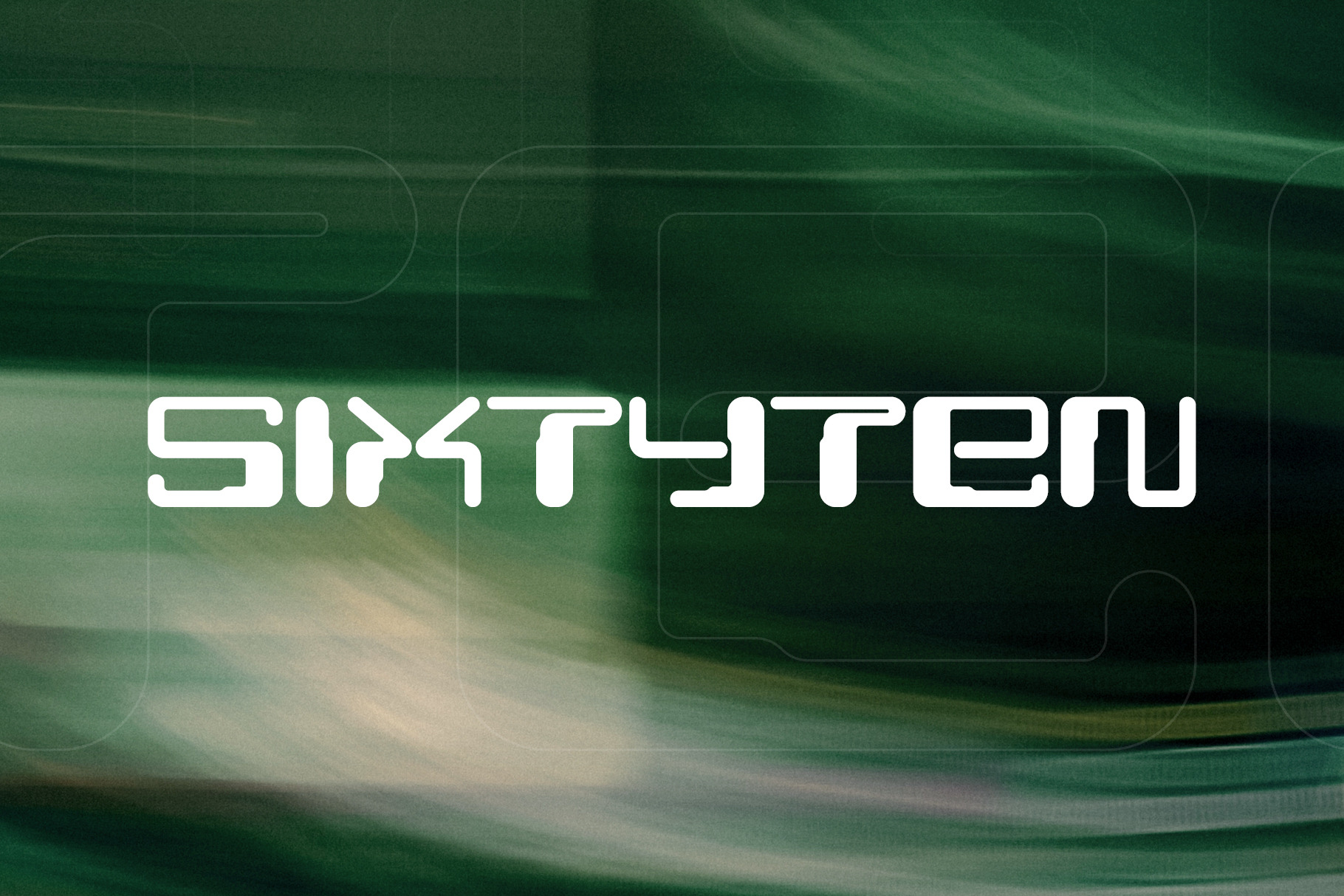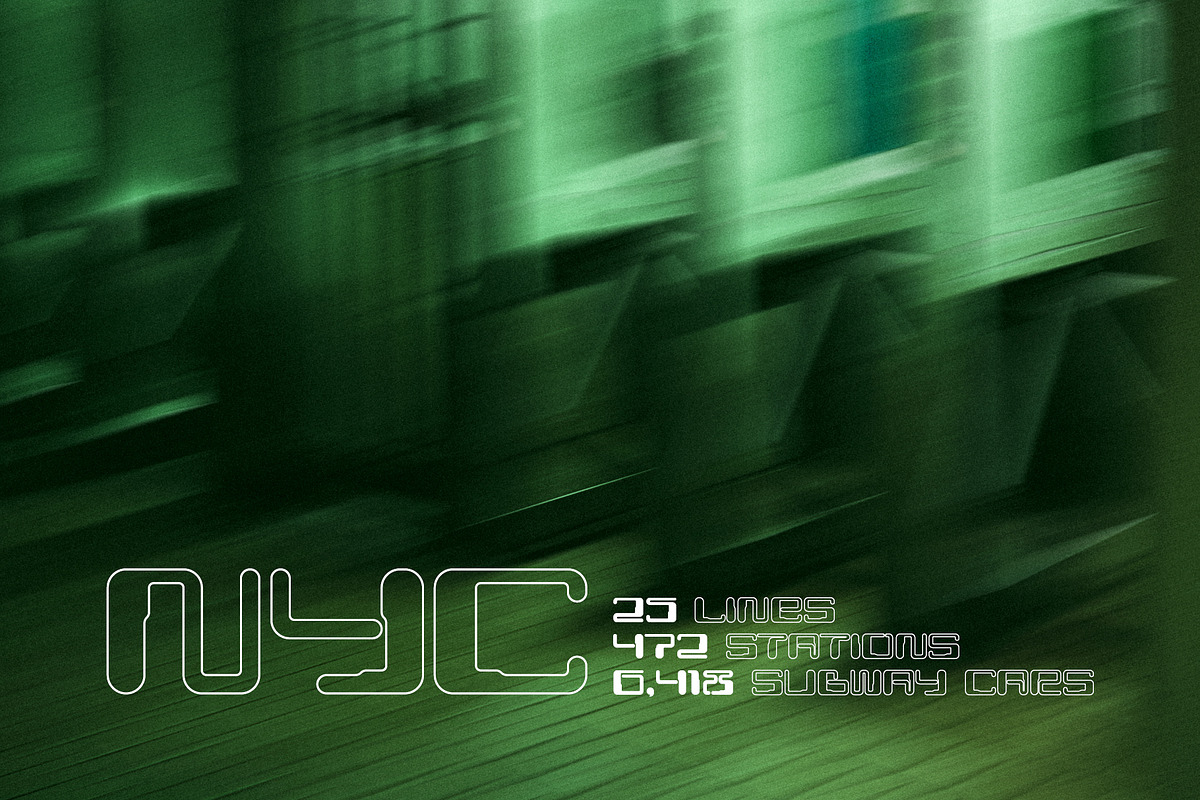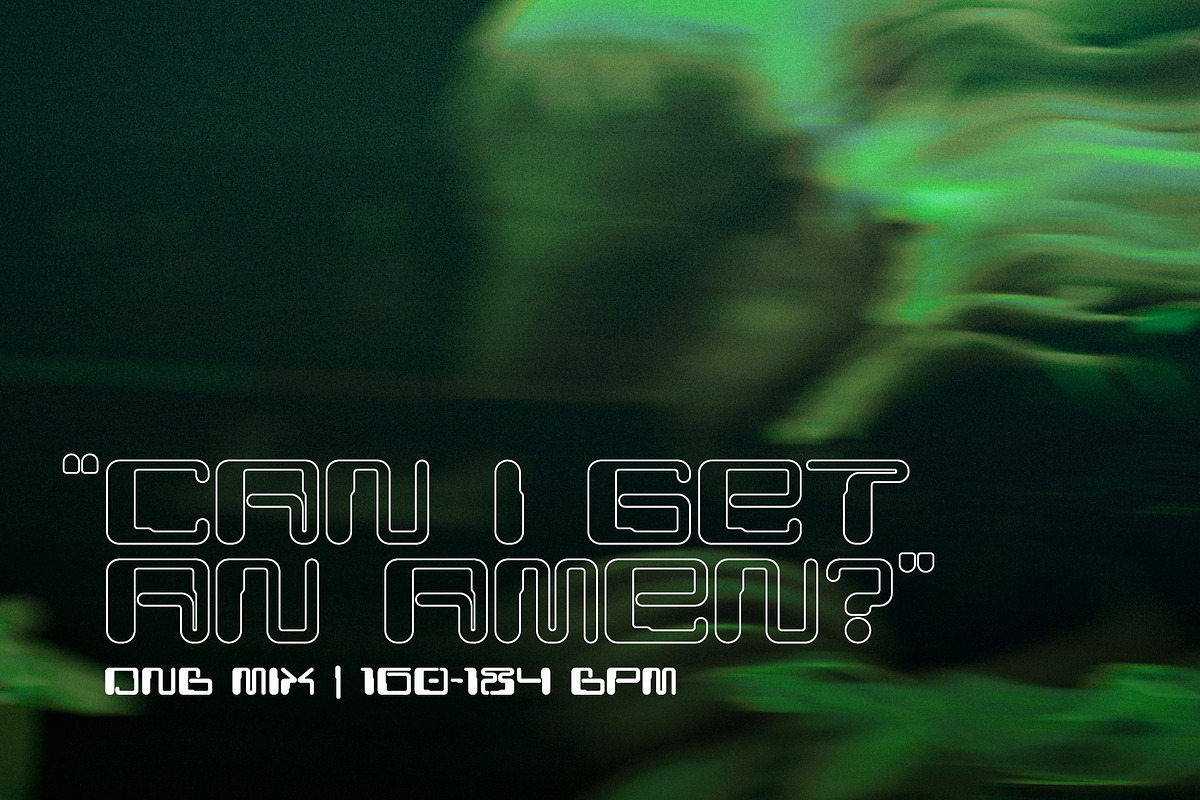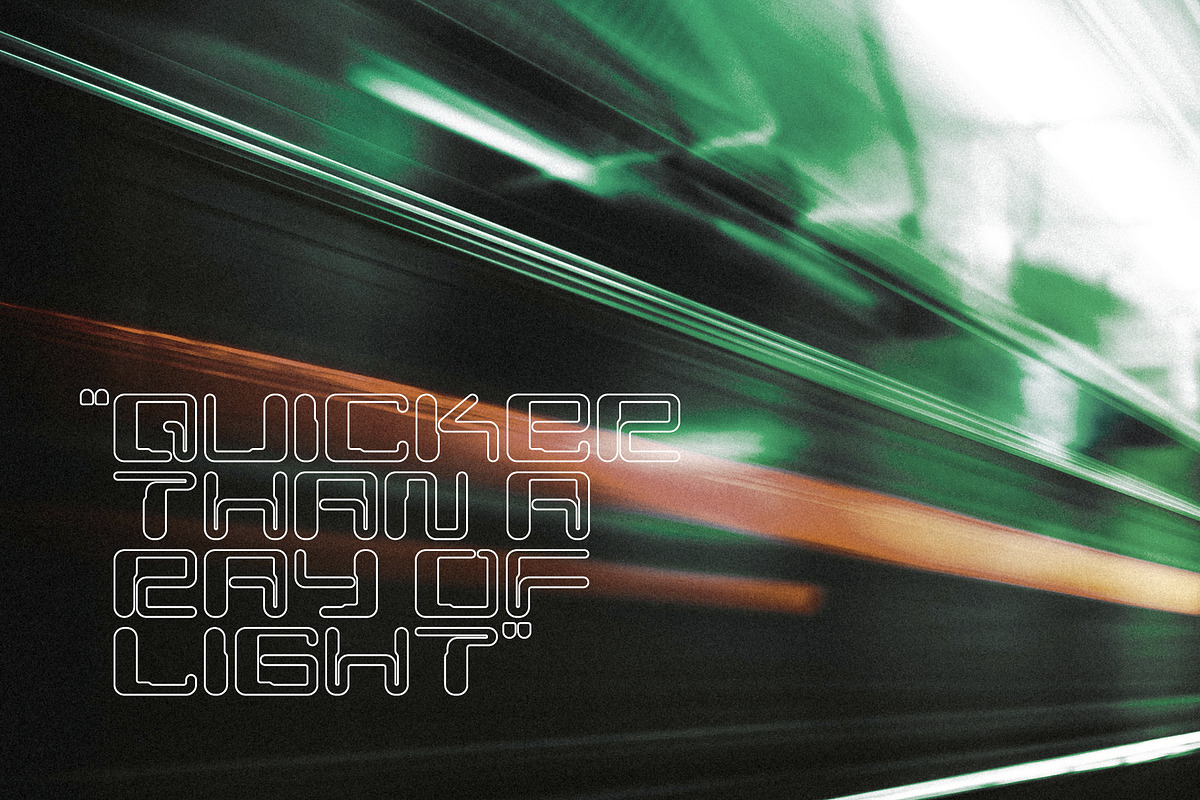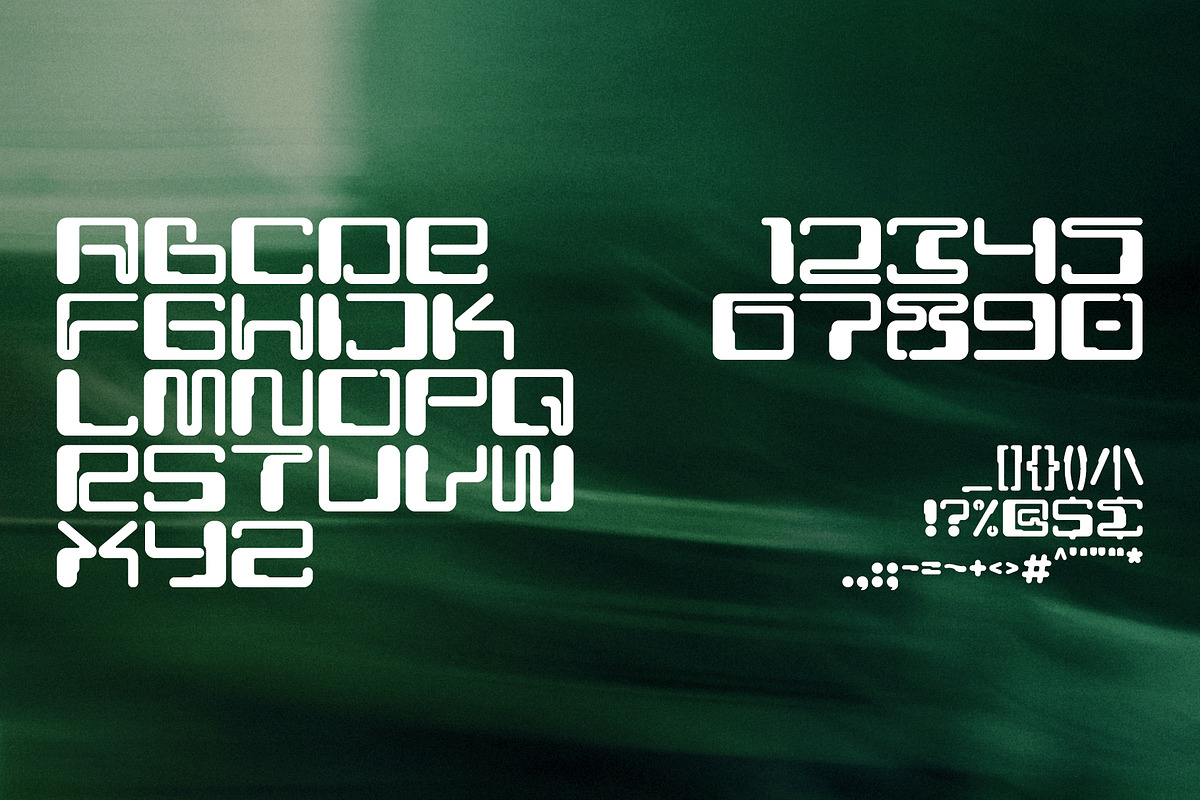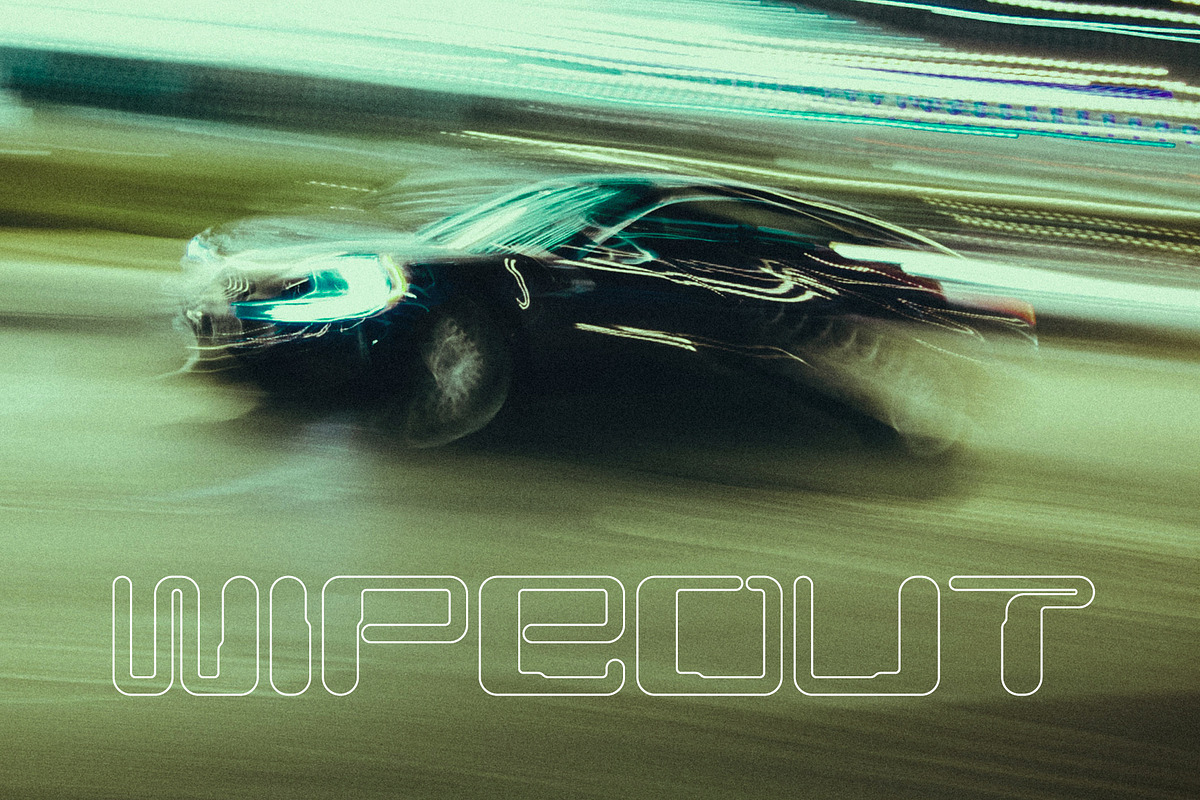
Sixtyten | Future Display Typeface
Taking inspiration from vintage computer lettering of the 1980s and alternative electronic music pioneers of the 1990s, the display typeface Sixtyten is designed to combine familiarity with futurism and adventure.
The typeface contains 69 glyphs, including:
- Capital letters
- Symbols (for punctuation, basic formulas, etc.)